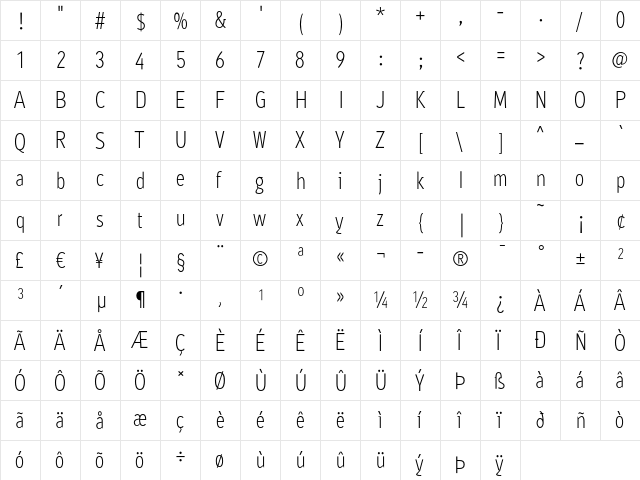
Ayumi Pro Light
| Foundry | Neil Summerour (Positype) |
| Designer | Neil Summerour (Positype) |
Design Context for Ayumi Pro Typeface
Ayumi Pro offers clean, dependable letterforms without strong stylistic allegiance, making it a practical choice for designers who need flexibility. The delicate stroke weight brings airiness and refinement to layouts.